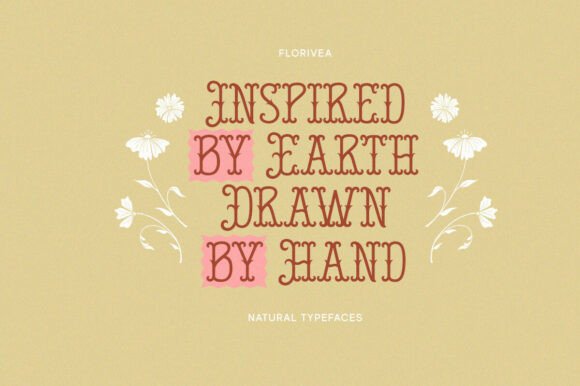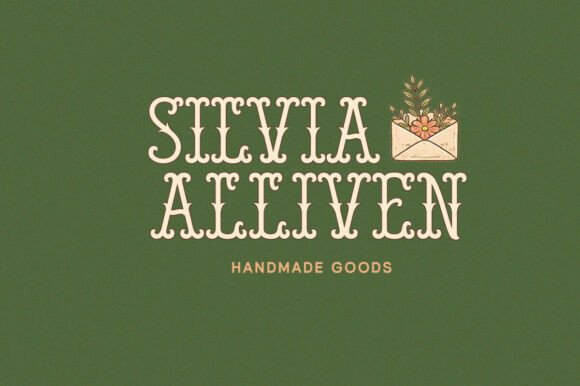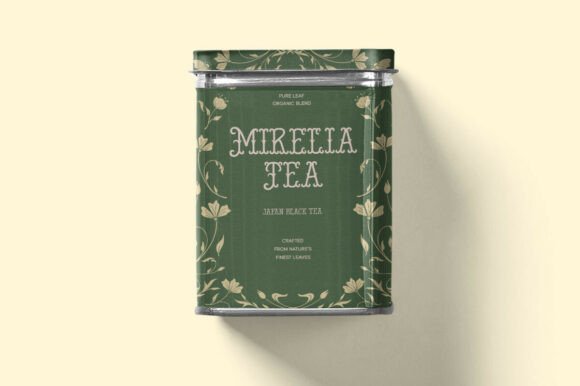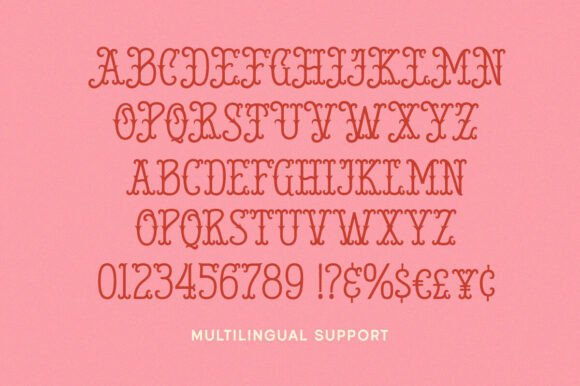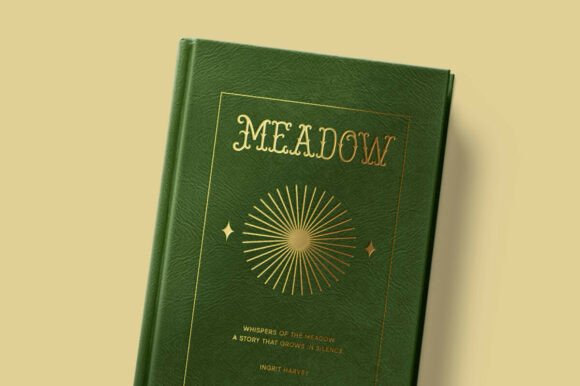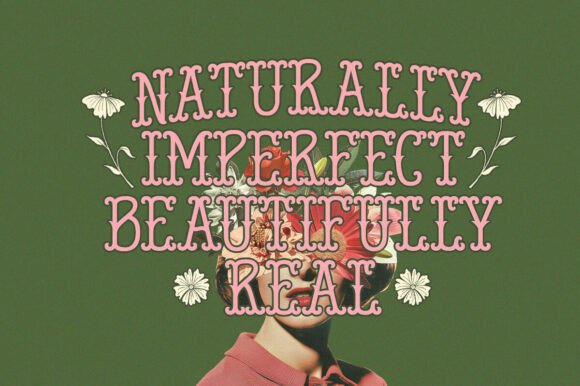
Introduction to Florivea Typeface Font
Florivea Typeface feels like a sweet little throwback wrapped in soft petals and sunshine.
With its curvy serif shapes, playful details, and slightly quirky rhythm, this font brings a gentle retro charm thatโs both cute and eye-catching It has that handmade, storybook vibeโlike something youโd find on vintage packaging, cozy cafรฉ menus, or dreamy branding with a touch of nostalgia.
Key Features of Florivea Typeface Font
Why Choose Florivea Typeface Font?